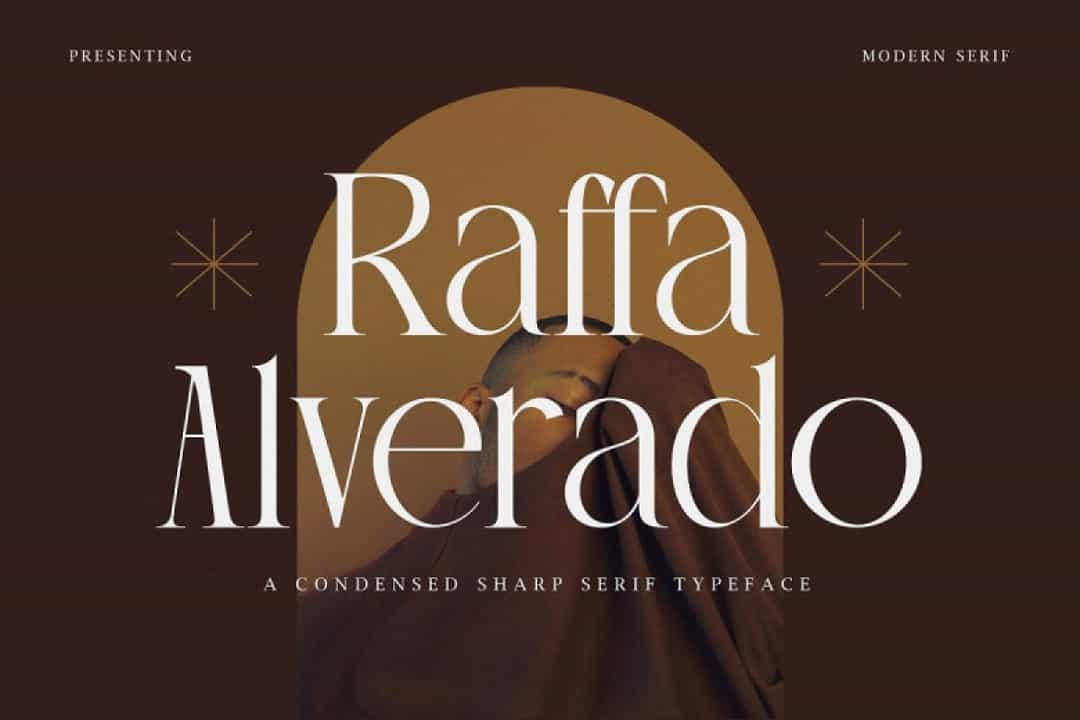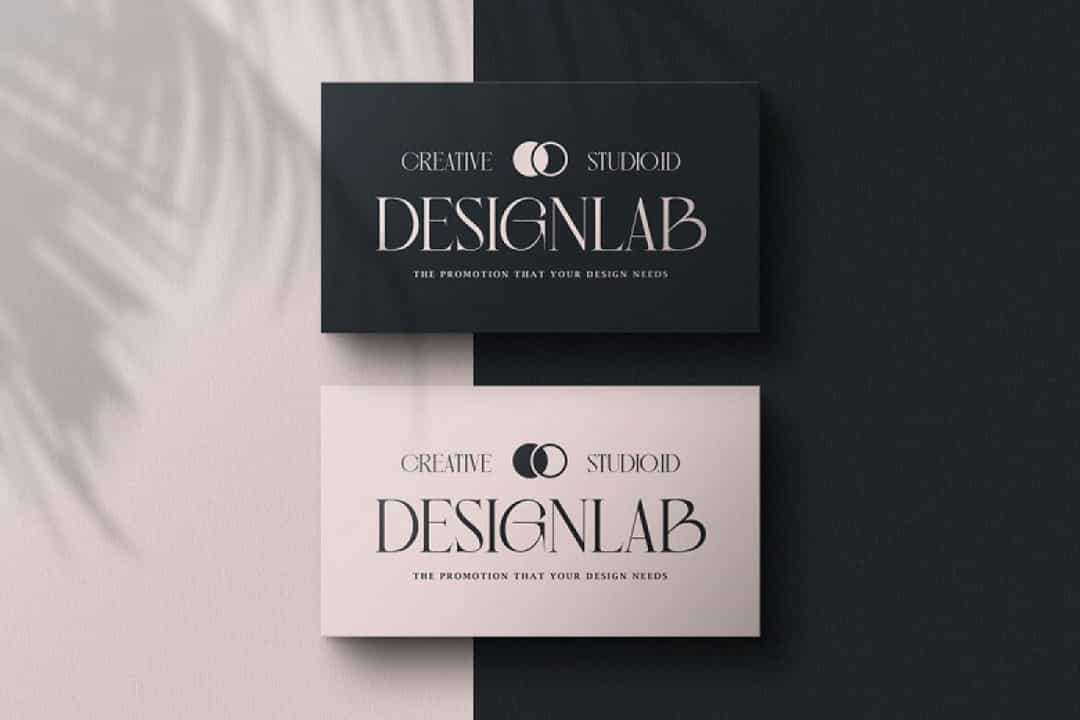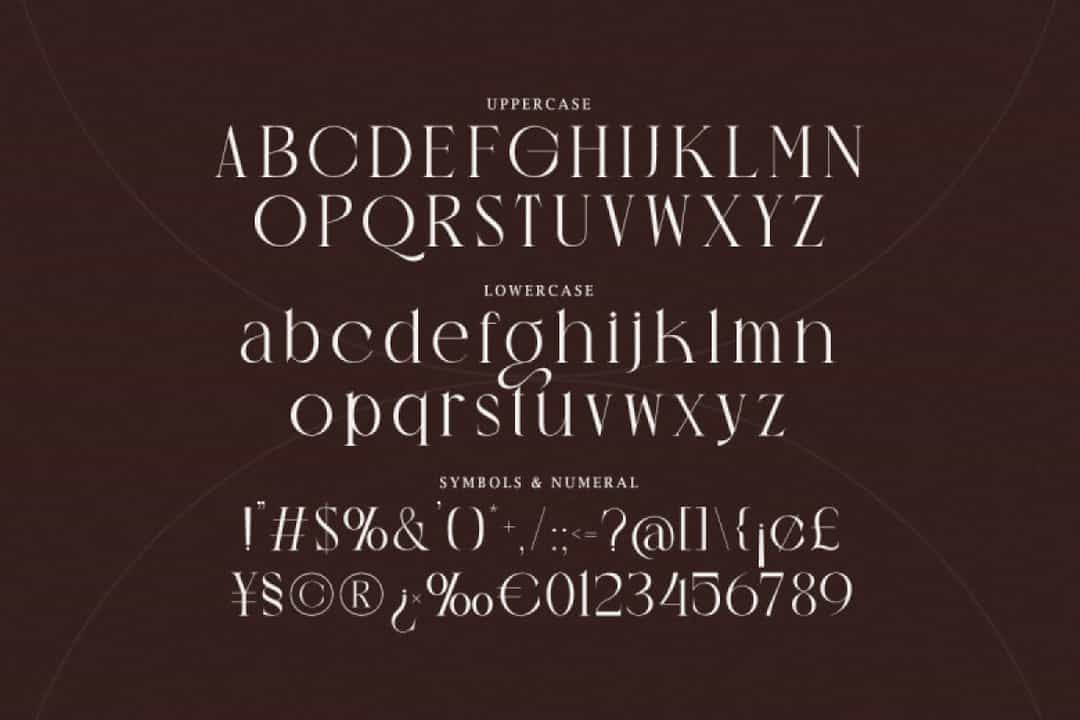
Raffa Alverado is a compact Sharp serif typeface, perfect for creating sophisticated yet bold designs! Take advantage of “Raffa Alverado’s” versatility by seamlessly elevating your designs using “Raffa Alverado.”